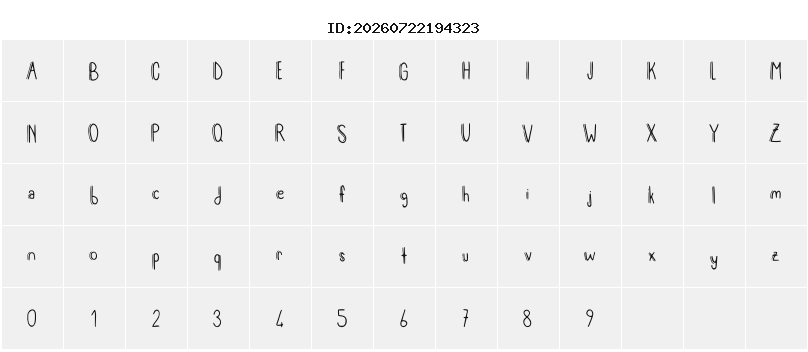
meryjane_v2 Preview
• Font Name: meryjane_v2
• Font ID: FontForge 2.0 : meryjane_v2 : 18-8-2014
• Full Font Name: meryjane_v2
• PostScript Name: meryjane_v2
• Character Count: 140
About meryjane_v2.ttf
meryjane_v2.ttf is a modern, elegant sans-serif font designed for ultimate readability and visual harmony. Perfect for branding, headlines, web design, and print materials.